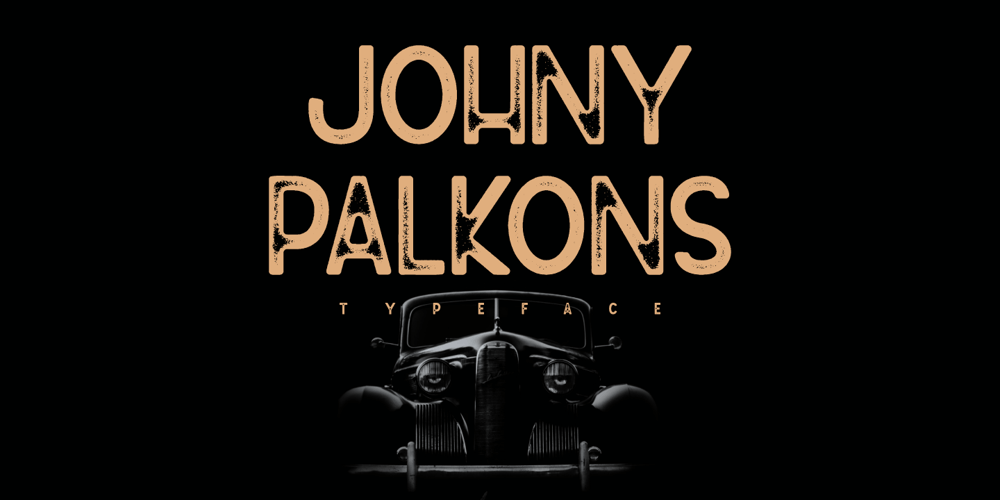
Johny Palkons Font Family was designed by Prio Nurokhim Aji and published by Prioritype. Johny Palkons contains 2 styles and family package options. The impression of a textured font made me excited and it crossed my mind to make this font. With 2 styles I present this font (regular and stamp) so that you can use it in your designs easily and full of inspiration. Suitable for logotype designs, posters, merchandise , social media posts, packaging, landing pages, advertisements etc. See some of the previews above for reference.Features:-Uppercase-Lowercase-Numeral-MultilingualNote: Use a program that supports the Opentype feature and the glyph panel is available, so you can see the various alternative characters available. Examples of programs such as Adobe Illustrator, Corel Draw or Inkscape.Thanks.